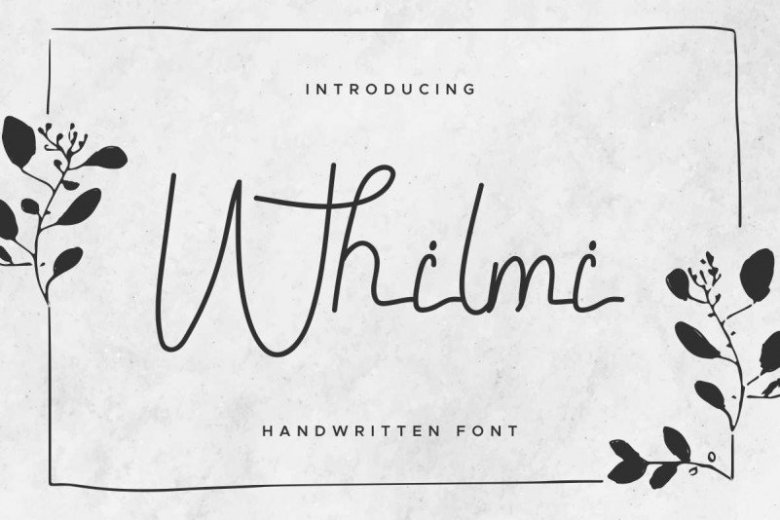
Whilmi Handwritten Font
Whilmi Handwritten Font is a unique font script , made by two letter artists : Saila and suci in Bandung and Garut, Indonesia.
Whilmi Handwritten Font has a stunning characters set, exclusively made for you 🙂
This is a new script decorative font with handwriting style. The characters style of this typeface is the beautiful, vintage, classic, simple, natural and beautiful